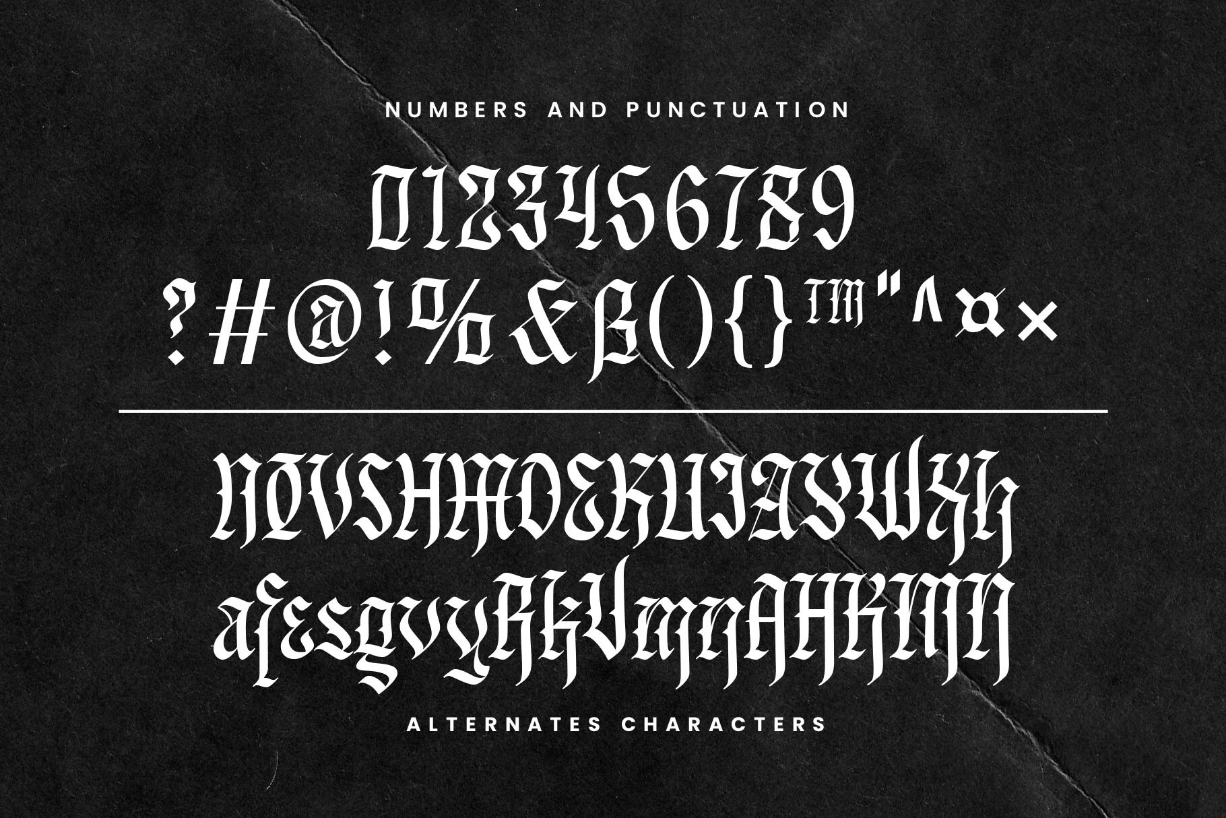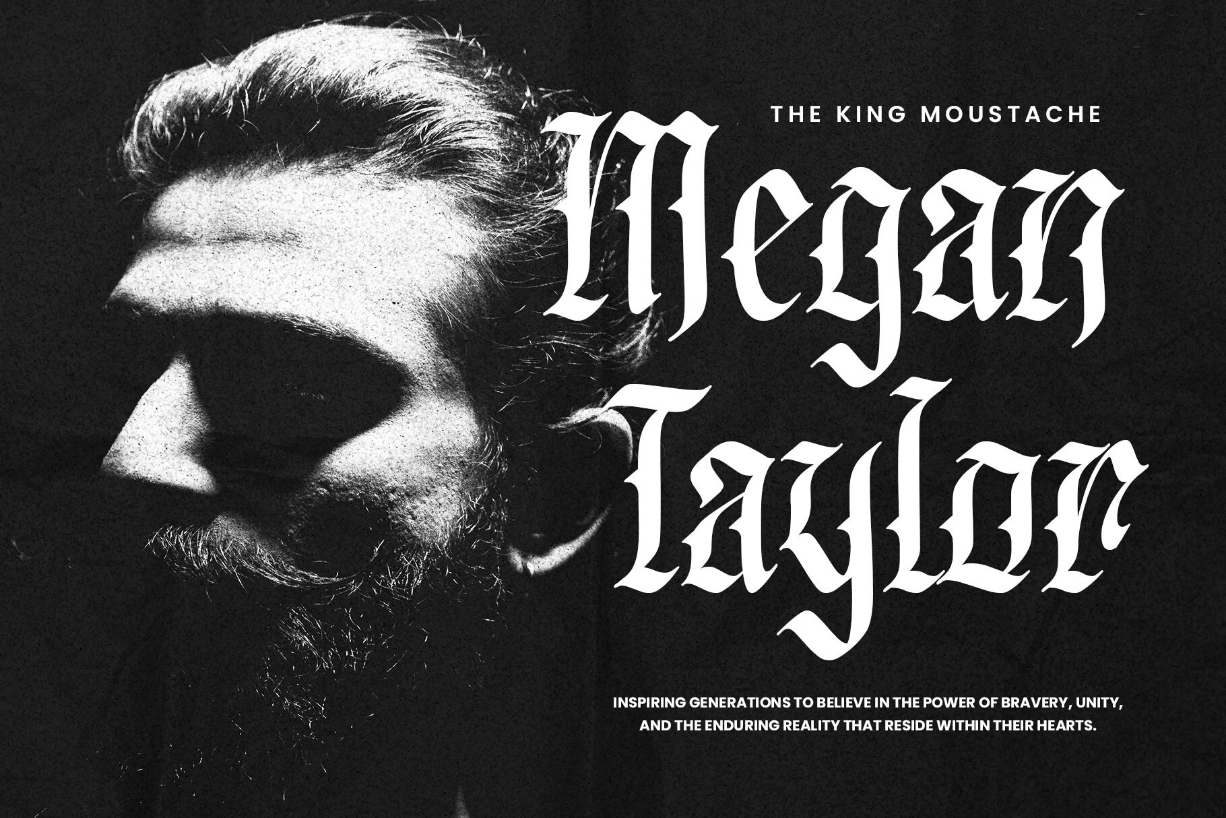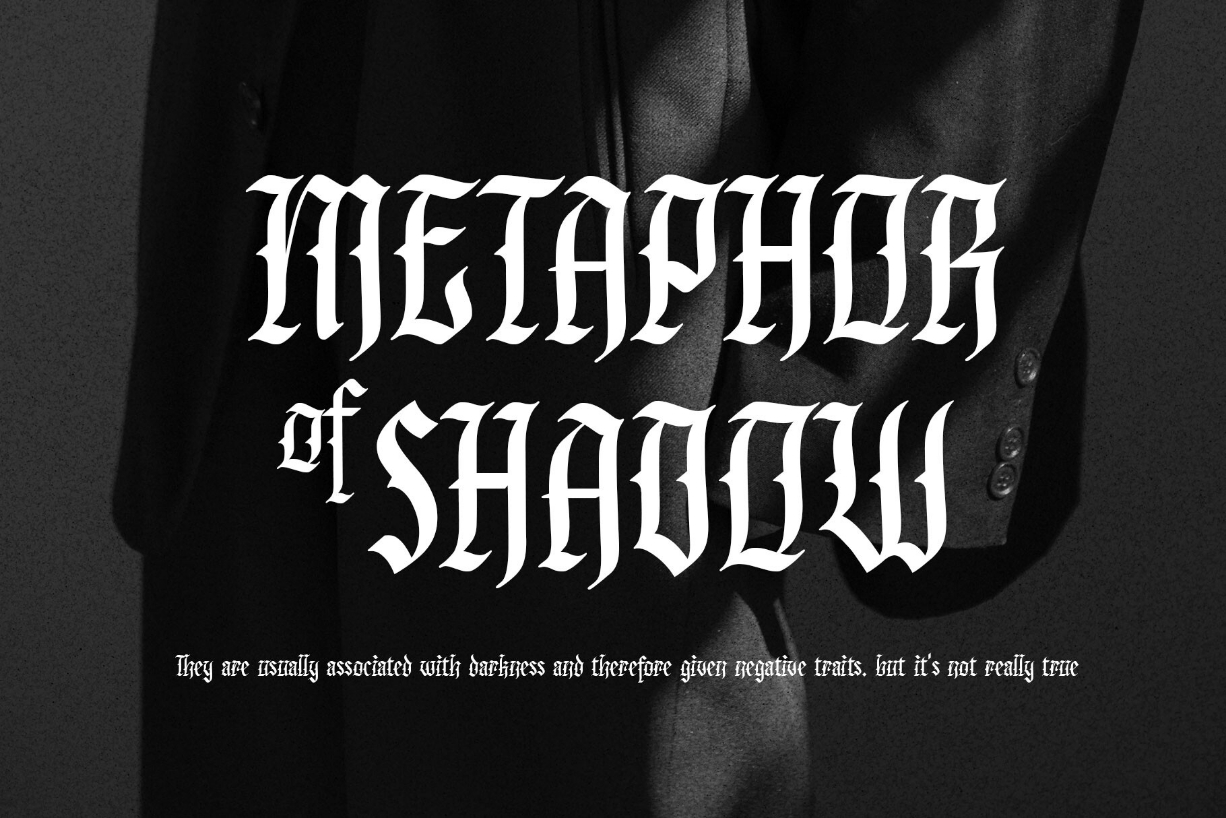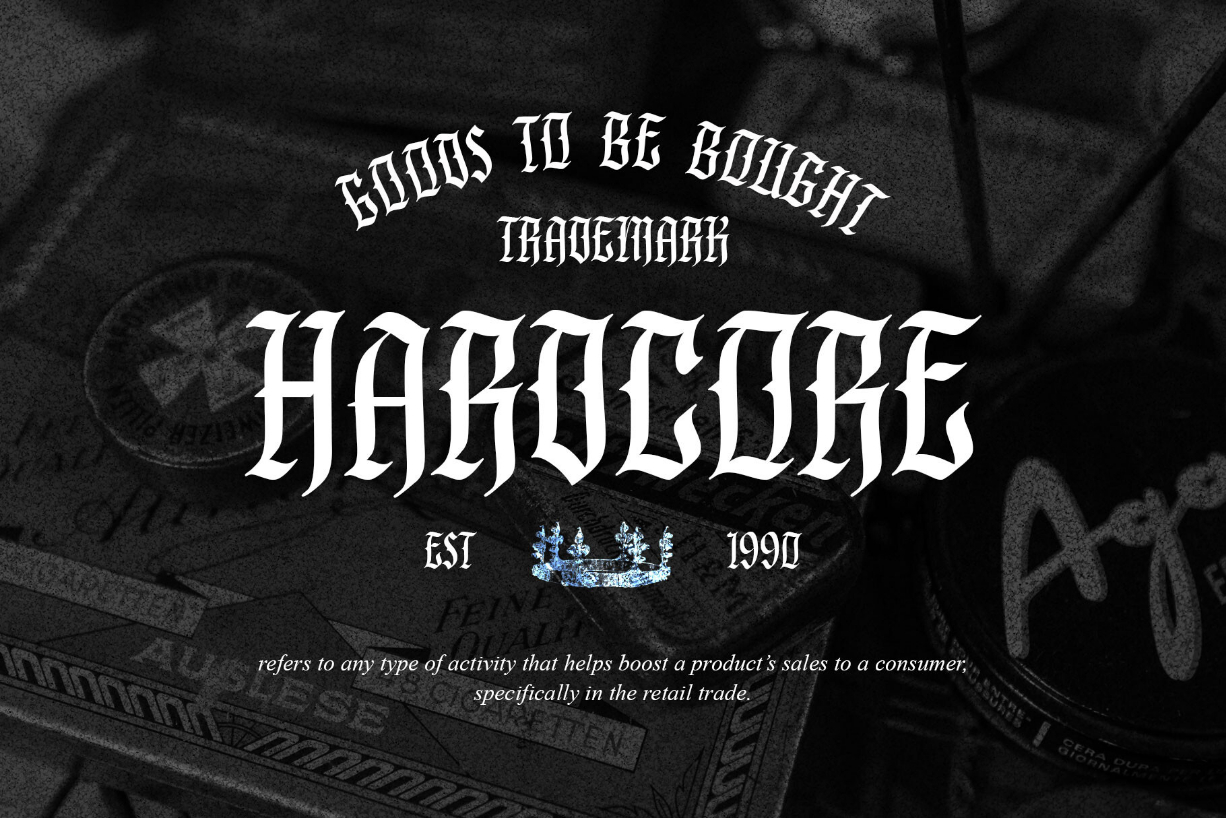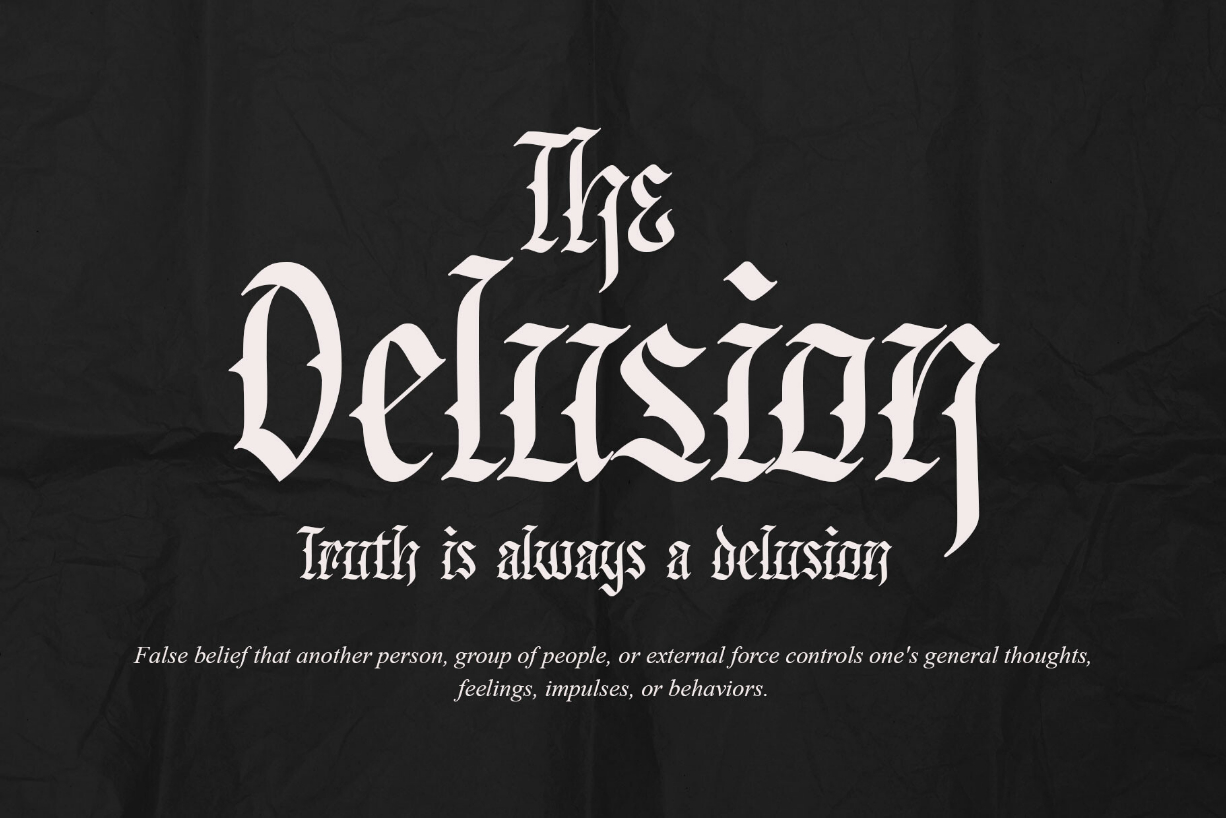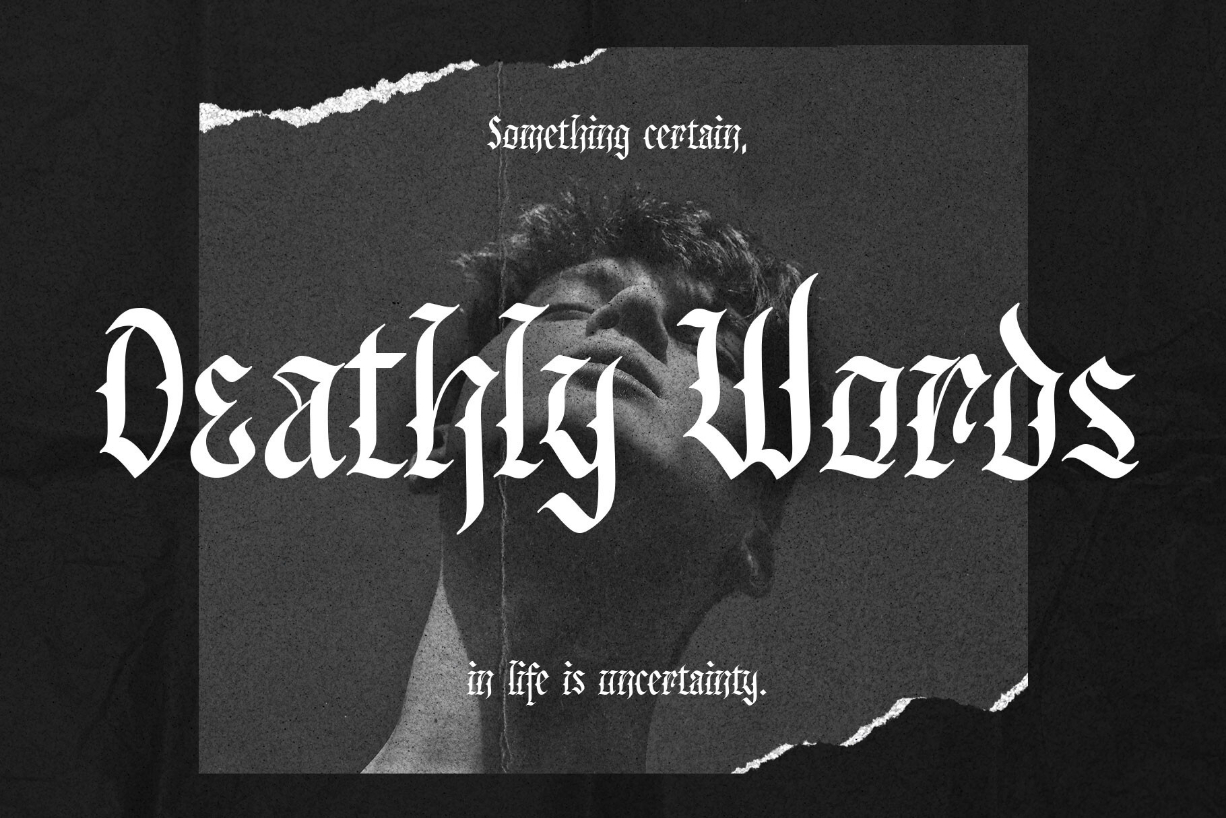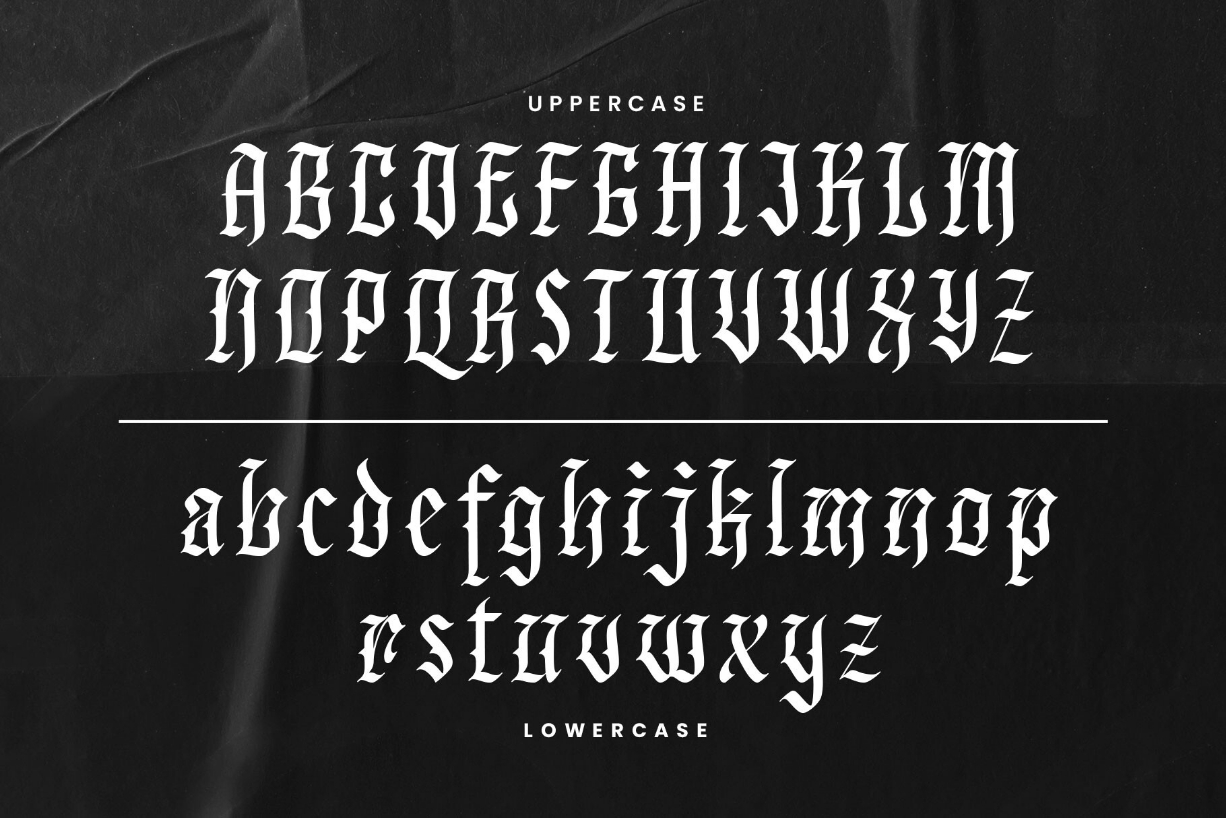
Glorious Victory Font
About Glorious Victory Font
Introducing Glorious Victory: a meticulously crafted blackletter font that seamlessly blends Fraktur and Old English styles. With its ornate design, it’s the perfect choice for displays, movies, posters, apparel, labels, branding, logotypes, short quotes, and more.
Immerse yourself in a world of gothic aesthetics, where darkness meets underground culture. Glorious Victory exudes strength and unwavering conviction, making it ideal for gothic, horror, underground, and youthful themes. Equipped with special characters which allow you to effortlessly add exquisite variations to your designs.